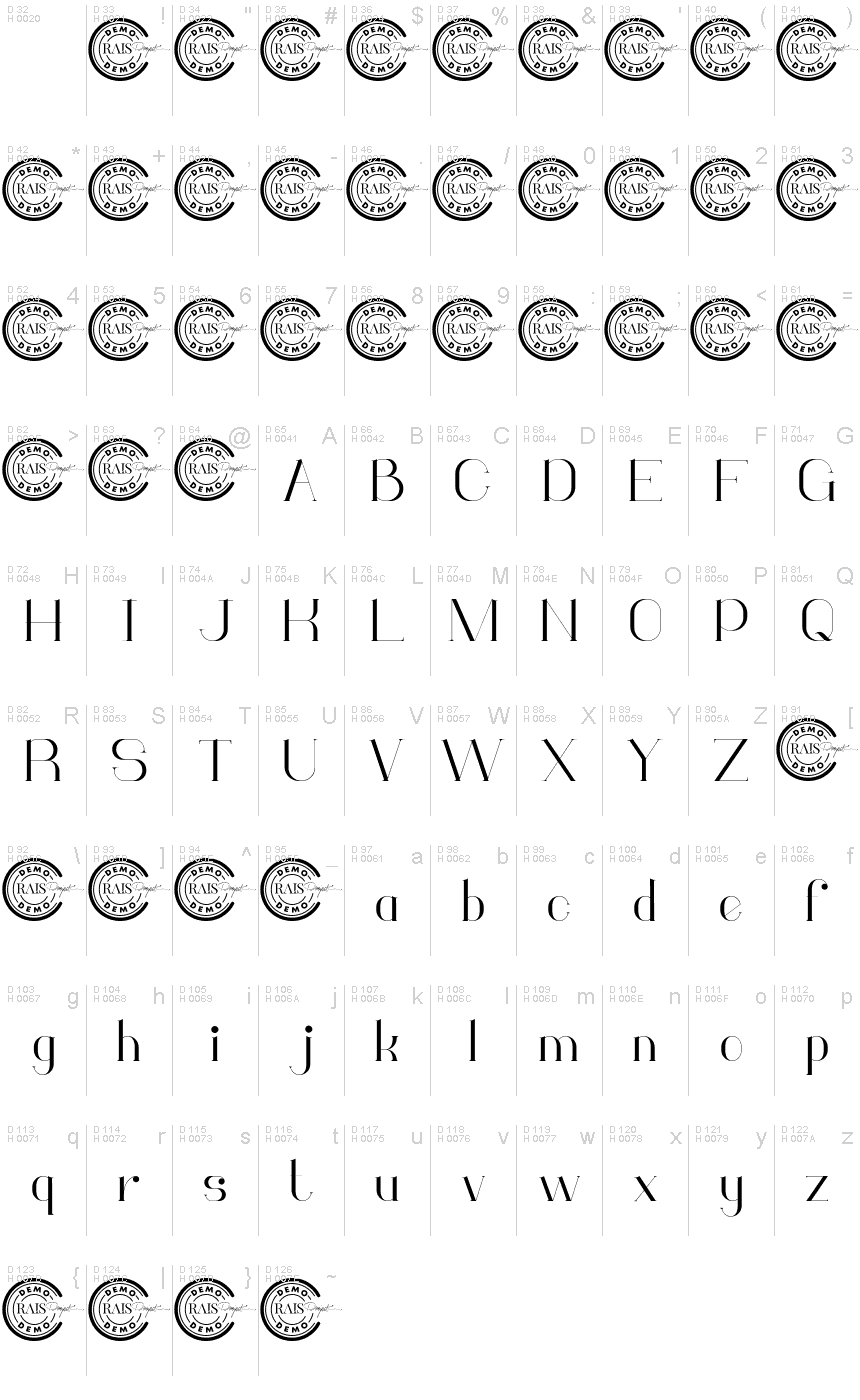
Monodic, a beautifully crafted light serif font designed by Shalsha & Sarah SP, is perfect for creating elegant and classic designs. This font is great for branding projects, wedding invitations, logo designs and other creative projects.